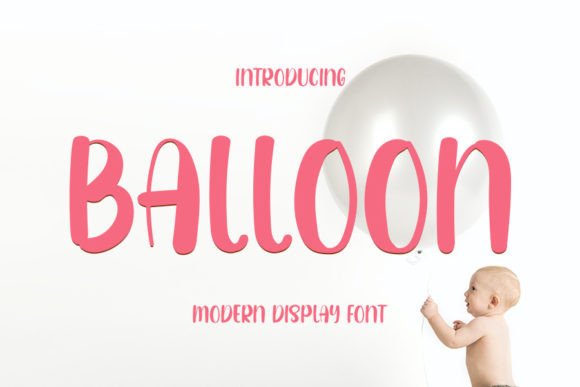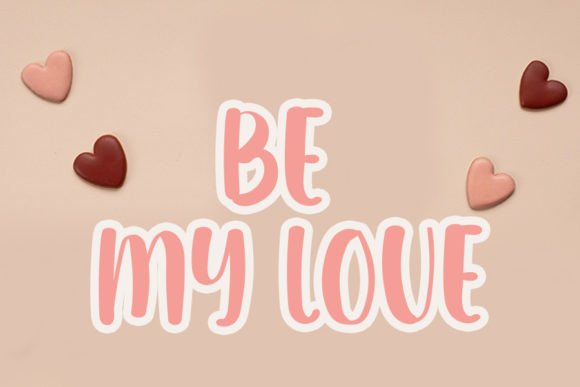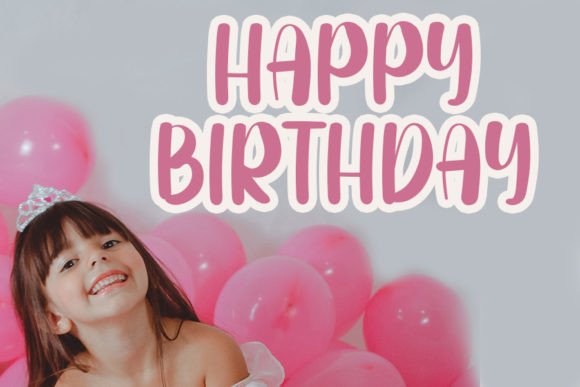
About Balloon Font
Balloon is a cool handwritten font with a modern vibe and spotless form, inspired by classic calligraphy. Not too thin and not too thick, balanced and varied, this font was designed to enhance the beauty of your projects.